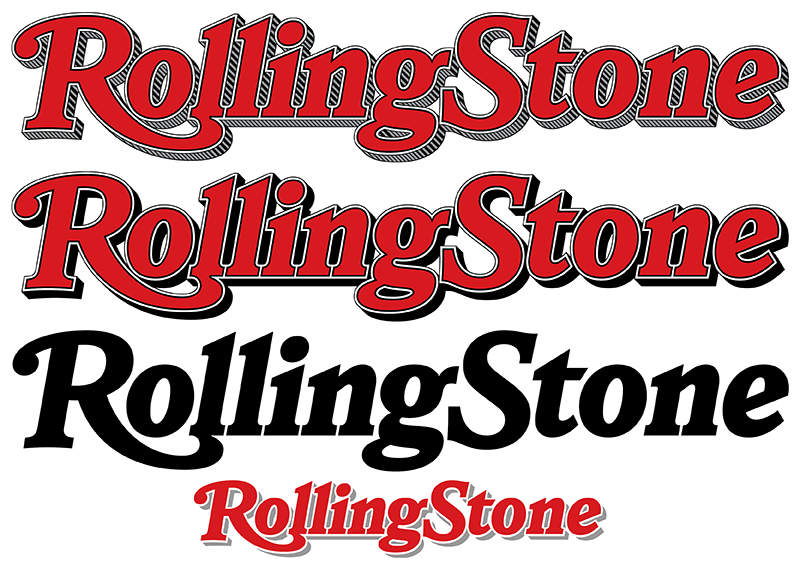
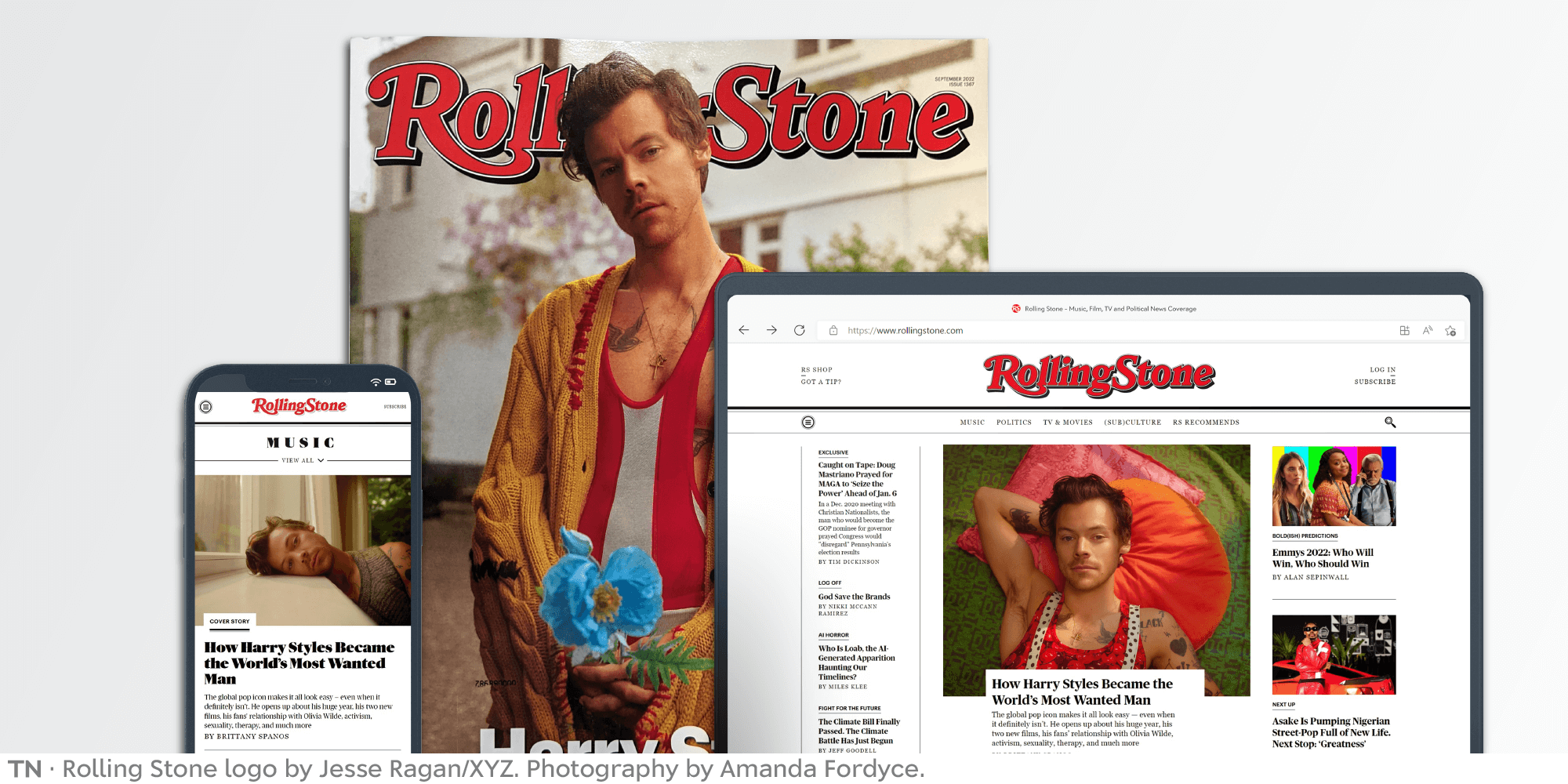
Earlier this year, Rolling Stone decided to redesign its logo as part of an overall refresh. They wanted to blend a more contemporary design for their digital presence while honoring their print traditions. Joe Hutchinson, now in his 15th year as Rolling Stone’s design guru, came to Type Network with the project, knowing our foundry partners were perfectly suited to the challenge.
First, some history.
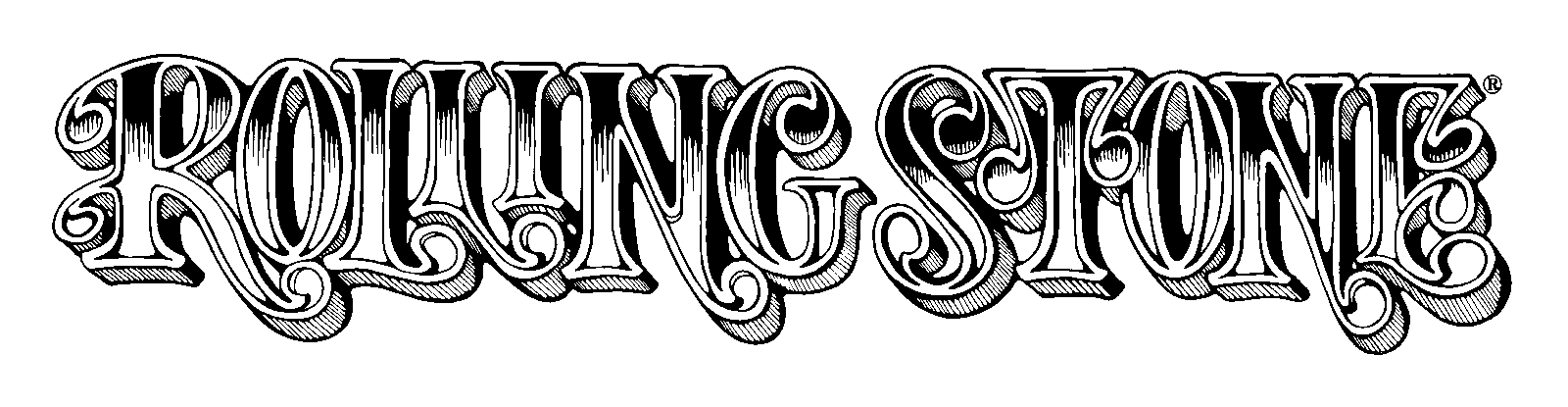
The 1967 logo, sketched by Rick Griffin.
The first Rolling Stone logo was a sketch by Rick Griffin, the psychedelic poster and underground comic artist whose work was plastered around San Francisco in the 1960s. A lively art nouveau design, like much of the lettering of the period, it was printed without ever going to final! Griffins’s features—like engraved shading, outlines, inner shading, and drop shadows—paved the way for its predecessors.
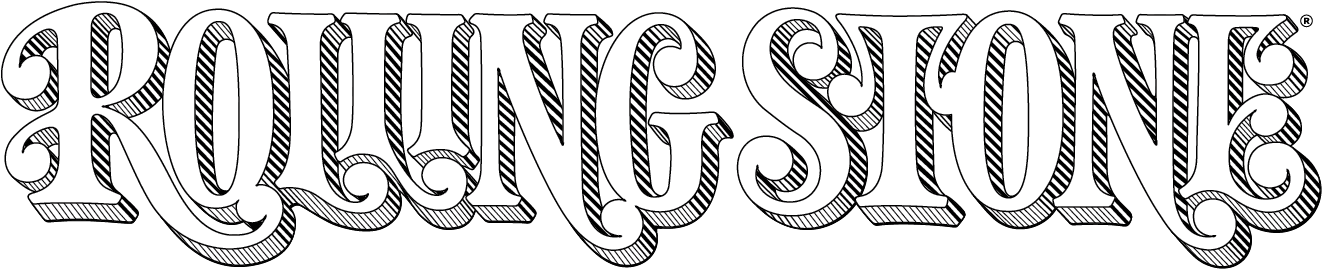
The 1975 logo, designed by John Pistilli (as digitized by Jon Valk).
Rolling Stone quickly gained traction and respect two-weeks at a time. With an editorial lineup that was right-on (rock and roll plus anti-war politics), and a set of writers that included Hunter Thompson, Cameron Crowe, Tom Wolfe, Jan Morris, Joe Eszterhas, and Ben Fong-Torres, began to sell hundreds of thousands of magazines every issue. With the scale came advertising, and more resources. To mark this growth in 1975, art director Tony Lane commissioned a cleaner logo. He chose lettering artist John Pistilli, the co-designer of the typeface Pistilli Roman. Pistilli elevated the original logo while keeping the trademark features of the original.
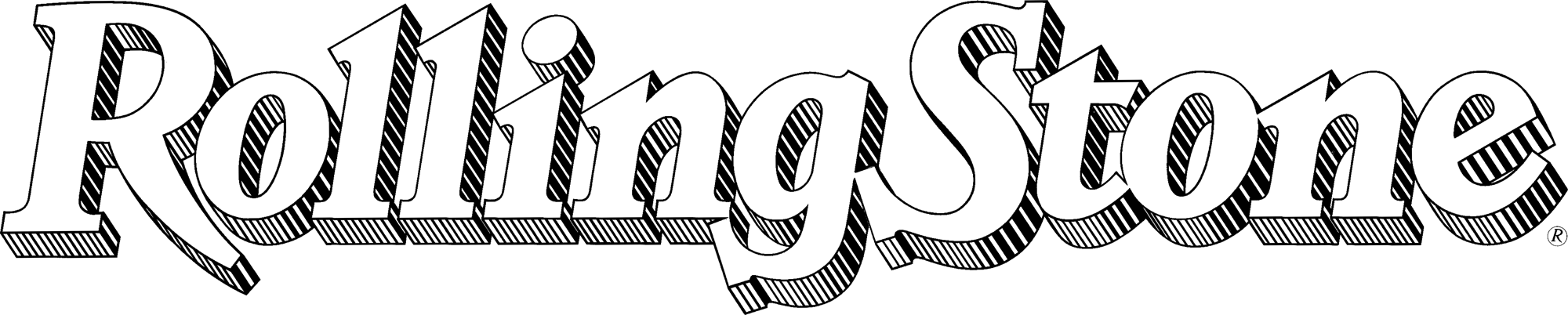
The 1977 logo, designed by Jim Parkinson.
In 1977, Lane’s successor, our own Roger Black, introduced a new design for the magazine with a custom type family by Jim Parkinson, which was later digitized as Parkinson. A new logo, matching the typeface, was drawn by Parkinson as well. He incorporated the outline and engraved shadow of number two, but rethought the rest. It was a big change; Black admits now, perhaps too big a change. But it seems right for the stature of the magazine, now long past the Summer of Love. This logo first appeared on the iconic tenth anniversary edition, filled with photographs by staffer Annie Leibovitz.*
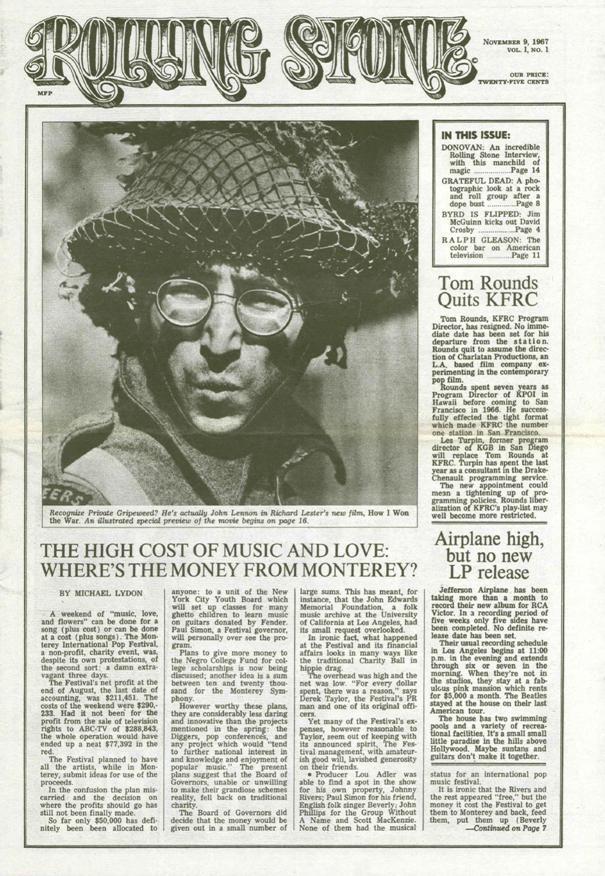
The first issue of Rolling Stone featured John Lennon and the oxford rule which came to define the magazine.
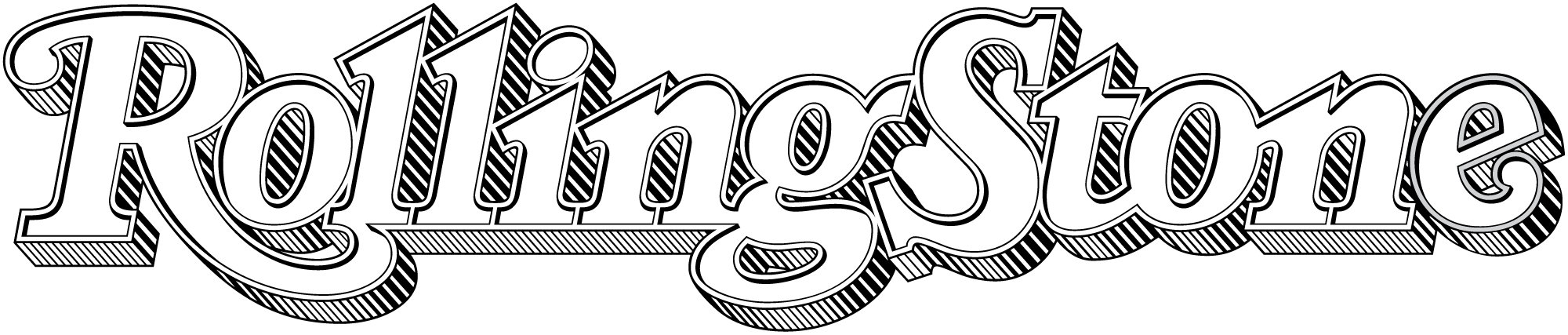
The 1981 logo, designed by Jim Parkinson.
Only four years later, Wenner decided they had gone too far, and got Parkinson to revisit the logo. Working with the design and Wenner’s own markup, he stretched out the tail of the R and revived the inline of the original.
And so it was for the next 30-or-so years, establishing itself as the mental image for Rolling Stone.
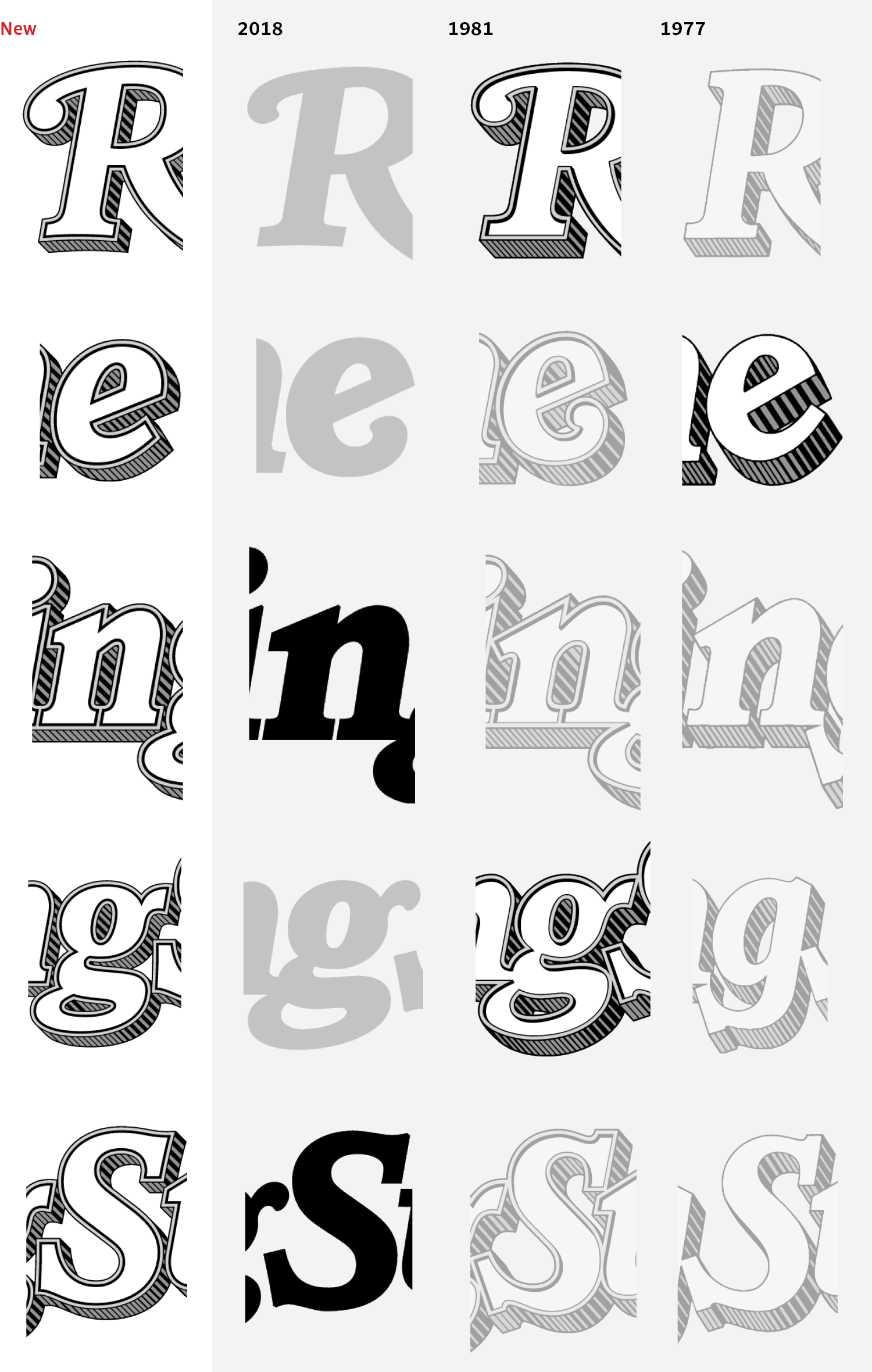
The 2018 logo, designed by Jim Parkinson.
Inexorable change absorbed the media world. The web and mobile apps took over publishing, or at least most of the ads. Jann Wenner decided to sell the magazine in 2019, and, eventually, to retire.The new owner, Penske Media Corporation (PMC), rolled up a number of big entertainment trade publications: Billboard, Variety, and Hollywood Reporter. Jay Penske, the chairman, had successfully pushed each title into the digital arena. He had quick success, and Rolling Stone focused on the digital market.
“Of course,” Hutchinson says, “We wanted the logo to work better on the apps and the website.”Penske also wanted to keep intact the legacy of Rolling Stone, including its design. To make sure that happened he hired Gus Wenner, Jann’s son, to be Chief Operating Officer, later making him the CEO. So, in 2018, Joe went back to Parksinson, for the next evolution of the logo. The two went through dozens of iterations before landing on the most prominent design shift yet: Flat, with only a few swashes, and no filigree. But still Rolling Stone.
However, after working for a few years with the flat logo, the team decided on another shift. Hutchinson wanted digital immediacy, but a bit more of the tradition.
A phone call to Roger Black started the conversation. Hutchinson and Black had been friends since the 1990s, when Hutchinson was an art director at the Baltimore Sun, which Black redesigned. In the early 2000s they worked together on new typography for The Los Angeles Times. And they’ve kept in touch, including a reunion of all the surviving art directors of Rolling Stone at an SPD conference in 2018–sponsored by PMC.
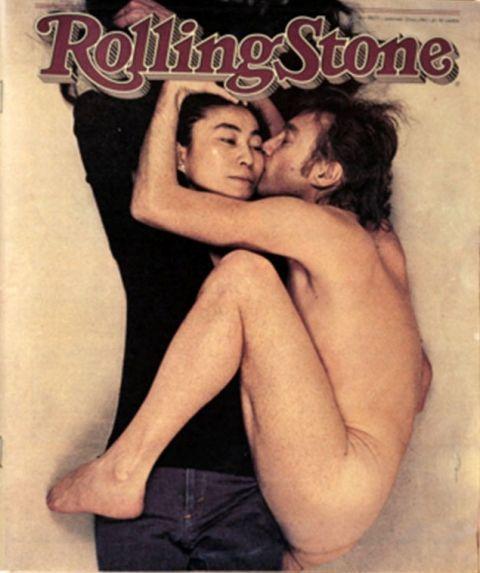
The first cover with this new logo became the most famous Rolling Stone cover of all time, showing John Lennon and Yoko Ono in naked embrace. It would be the last portrait taken of Lennon.
Ben Kiel and Jesse Ragan make useful, quietly offbeat fonts at their independent digital foundry, XYZ Type, which operates in the interwebs between St. Louis and New York.
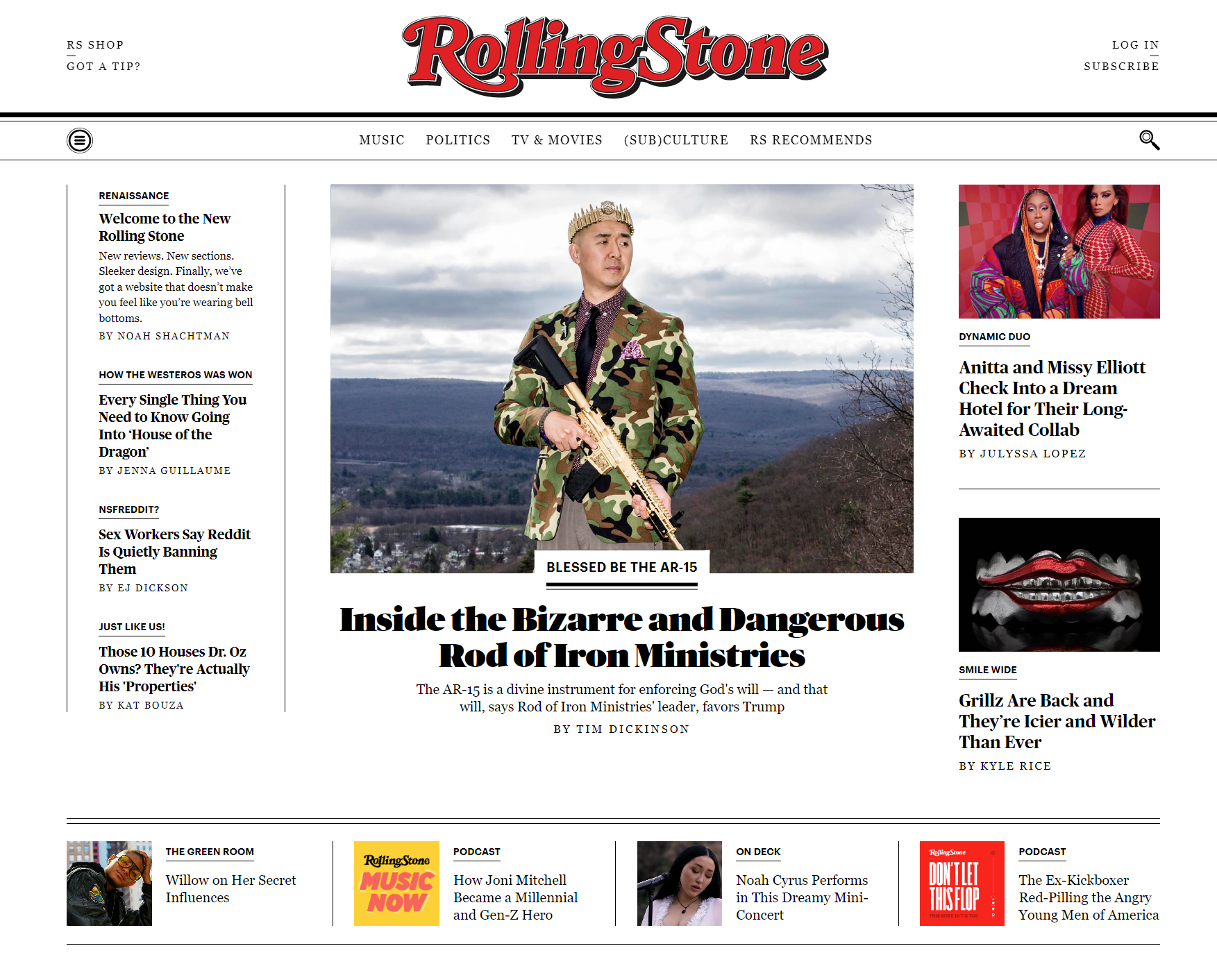
Rolling Stone was ready to rethink the logo again, but Parkinson, too, had retired. Black suggested that after working out the brief, the schedule, and the budget, Type Network could field four foundry partners who had the historical knowledge, technical expertise, and artistic creativity suited to Rolling Stone. Each did a presentation, and Hutchinson decided to work with Jesse Ragan from XYZ Type. Given Ragan’s experience rebranding historical entities (such as Carnegie Hall, a short walk from Rolling Stone’s office), Hutchinson knew he was the perfect fit.
Comparing new letterforms to previous iterations shows the delicate mix-and-match Ragan accomplished, combining elements of old logos to make something cohesive.